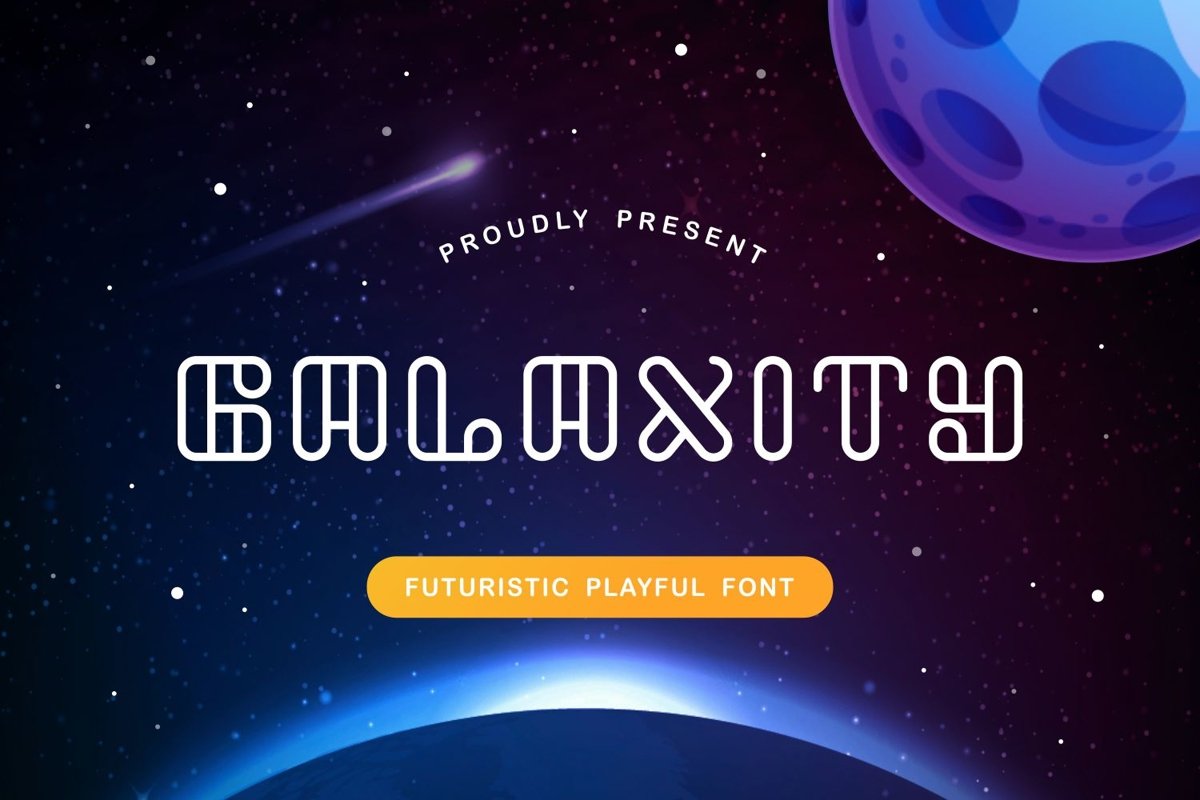
Galaxity is san serif display come with futuristic themes. This font looks a good and simple shape. It matches applies in some designs such as the logotype, branding, packaging, quotes, poster, shirt, book, invitation and more custom design. The features uppercase, lowercase, numeral, punctuation & symbol, multilingual support, PUA encoded (fully accessible without additional design software).